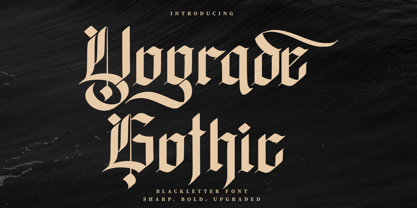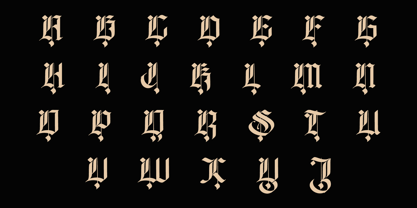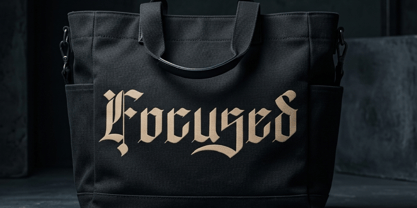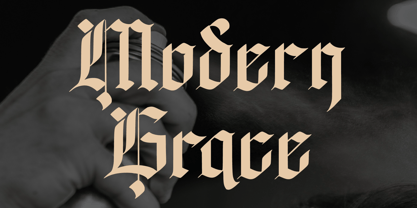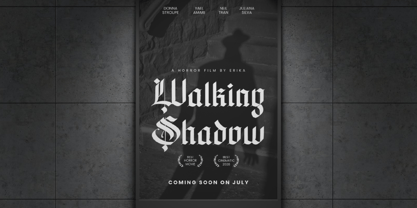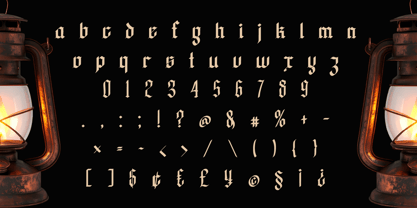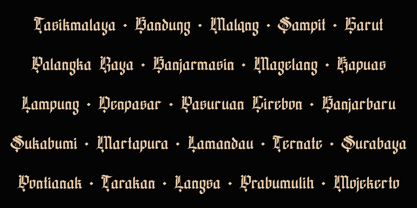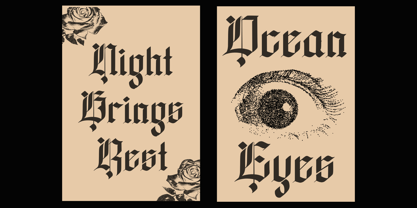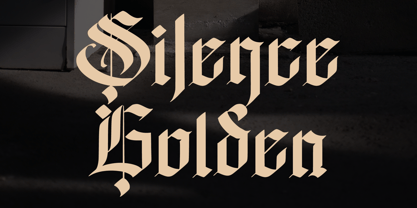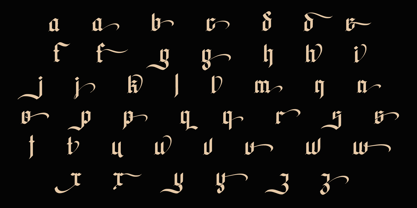
Yograde
by Rvandtype
The Yograde Font Family was designed by Randi Irvan and published by Rvandtype. Yograde contains 1 styles. More about this family
Yograde Gothic is a meticulously crafted blackletter font that strikes a perfect balance between traditional gothic calligraphy and sharp, modern geometric precision. Designed for impact, this typeface brings a bold, aggressive, yet sophisticated aesthetic to any design project.
The font features razor-sharp terminals and high-contrast strokes, making it an ideal choice for branding that requires a strong visual identity. Whether you are working on a streetwear brand, a music poster, or luxury packaging, Yograde Gothic delivers a premium “upgraded” feel to your typography.